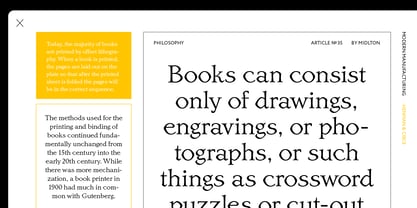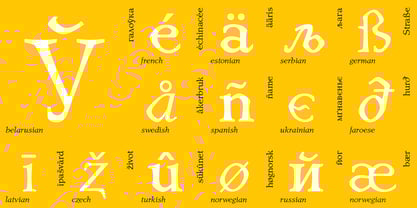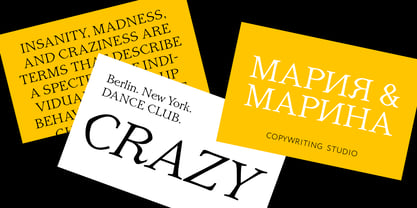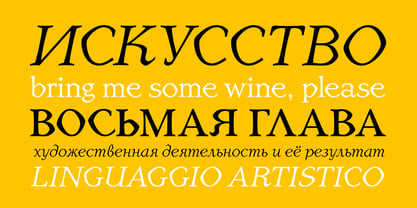
Henman Font
This Henman Font is perfect for contemporary business branding, professional service logos, modern corporate materials, clean web interfaces, sophisticated marketing campaigns, executive presentations, minimalist product packaging, tech company communications, financial services branding, and polished commercial applications.
What makes this Henman Font exciting is its refined professionalism that embodies contemporary business excellence and sophisticated commercial appeal. The font features clean, authoritative letterforms with modern proportions that convey competence, reliability, and professional success. Its polished character and business-focused design make it ideal for organizations seeking to communicate expertise, trustworthiness, and contemporary professionalism in competitive commercial markets.
The Henman Font family includes light, regular, medium, and bold weights with professional alternates and business-oriented variants. This comprehensive commercial font family provides designers with sophisticated typographic tools to create authoritative compositions while maintaining the professional character essential for business communications and corporate brand applications.
Business organizations and professional service firms consistently choose Henman Font Free Download for projects requiring contemporary sophistication and commercial credibility. This font's distinctive professional character perfectly captures the business excellence and commercial competence that resonate with audiences who value professional expertise and sophisticated business relationships.
The authoritative construction of Henman Font showcases precisely crafted letterforms with business proportions that ensure exceptional professional appeal across all commercial applications. Its polished appearance and contemporary sophistication create memorable impressions while maintaining the readability necessary for effective business communication and professional marketing materials.
Professional designers appreciate how Henman Font brings immediate credibility and business authority to brand communications. The font's commercial nature allows organizations to communicate professional excellence and business success while maintaining the sophisticated quality necessary for effective positioning in competitive commercial and professional service markets.
The business appeal of Henman Font makes it particularly effective for brands emphasizing professional expertise, commercial success, and contemporary business excellence. Its authoritative character resonates strongly with audiences who appreciate professional competence, business sophistication, and organizations that represent the highest standards of commercial professionalism.
Whether developing branding for professional consulting firms or creating materials for contemporary business ventures, Henman Font Free Download provides the professional typographic foundation that business brands need to communicate their commercial expertise, professional authority, and the sophisticated excellence that defines successful contemporary business and professional service achievement.